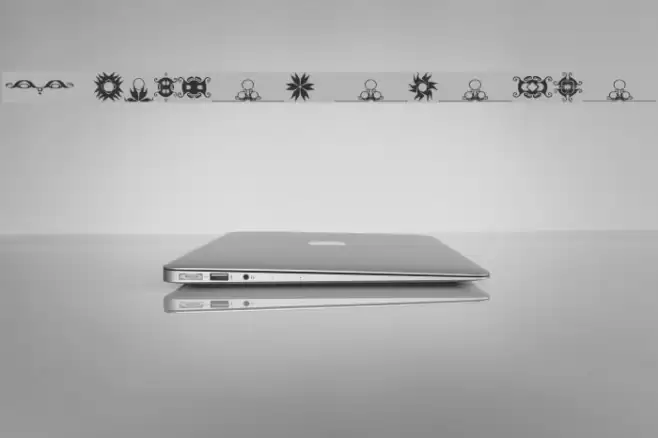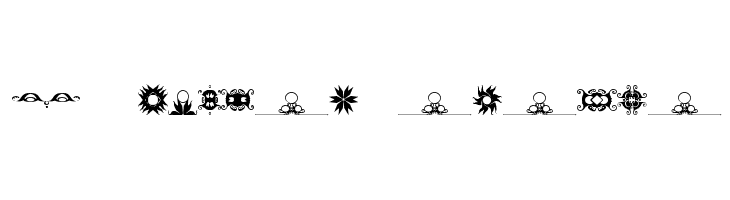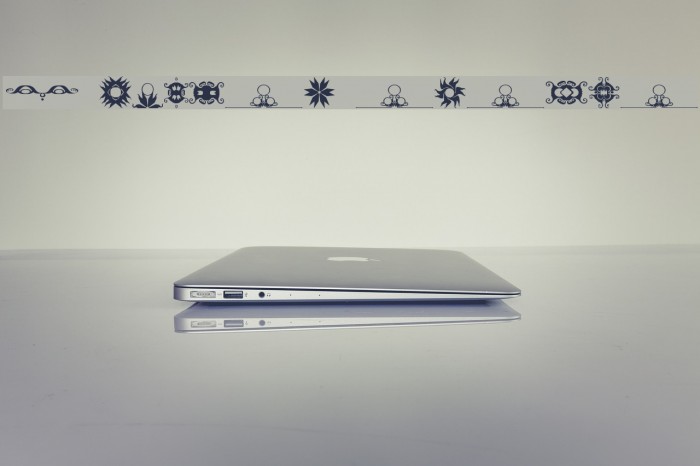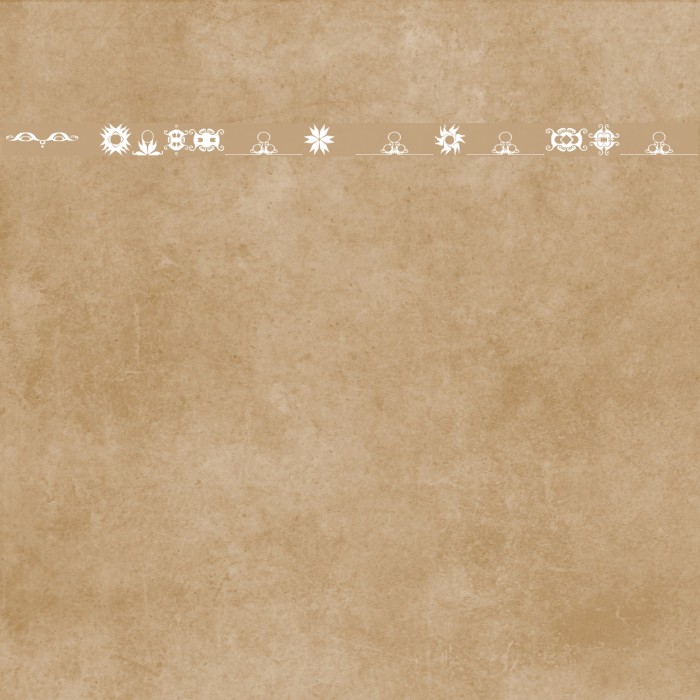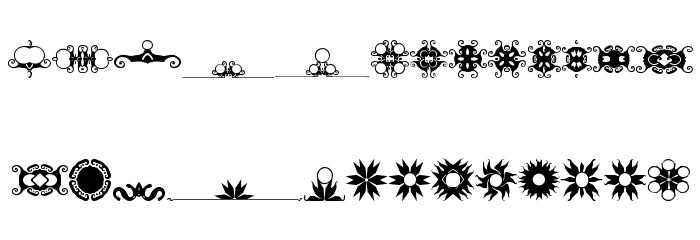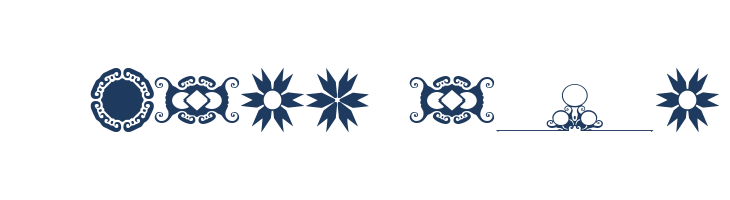
BR Turkles Revenge Font
BR Turkles Revenge Description
This is not a traditional font but rather a collection of decorative elements and ornaments. The designs are intricate, featuring a variety of symmetrical and floral motifs. These elements are highly stylized, with swirling lines and circular patterns that create a sense of elegance and complexity. The designs are reminiscent of vintage or classical decorative art, suitable for embellishing documents or creating borders and frames. The overall appearance is ornate, with a focus on aesthetic detail rather than readability.
A collection of intricate decorative elements and ornaments from Dingbats fonts.
- Proposed Projects: Ideal for creating decorative borders, frames, or embellishments in graphic design projects. Suitable for invitations, certificates, or any project requiring an ornate touch.
- Use Case: Decorative elements